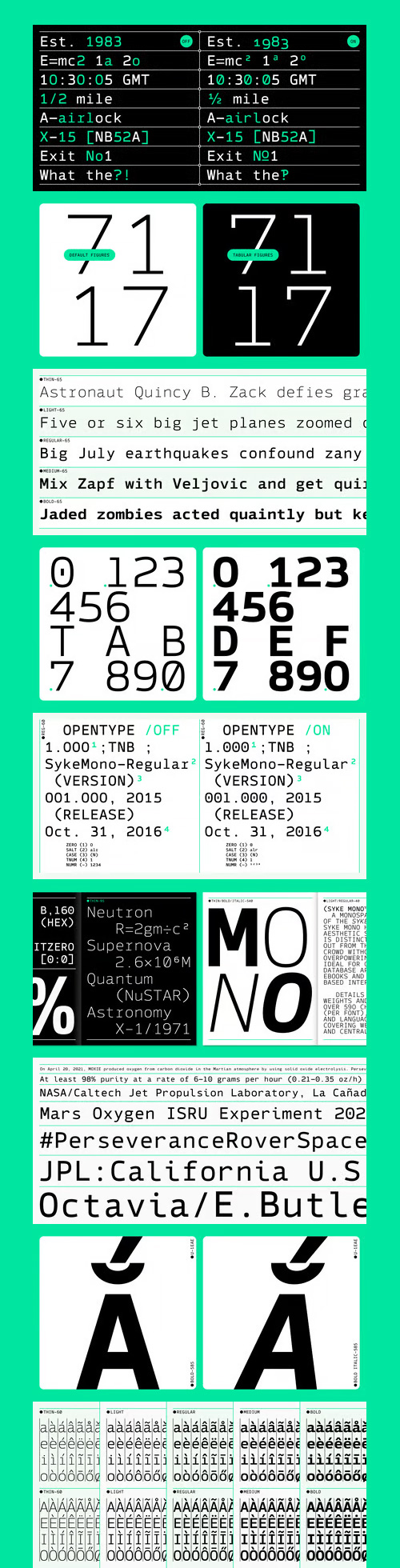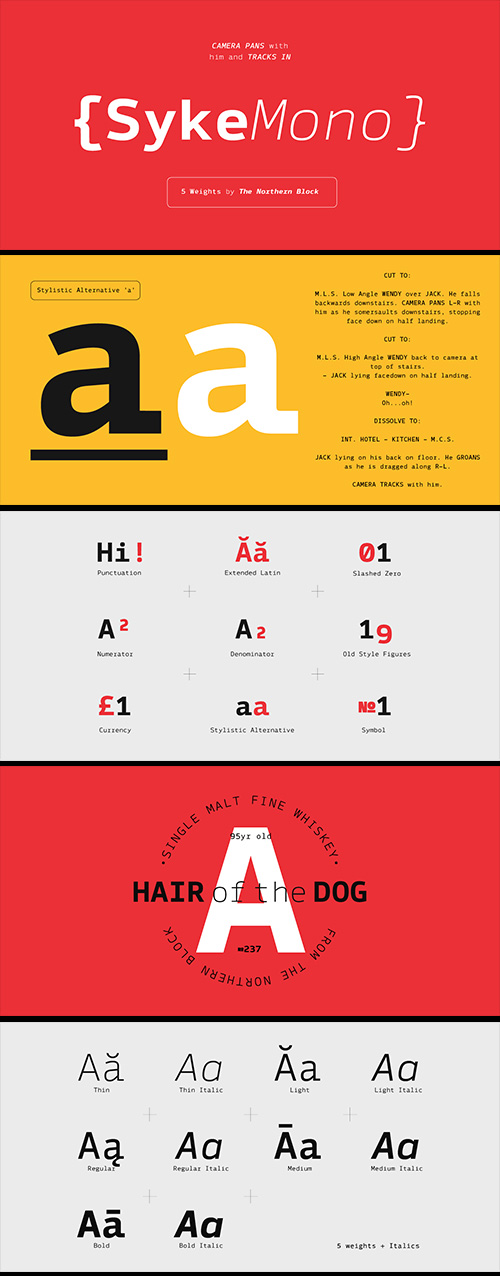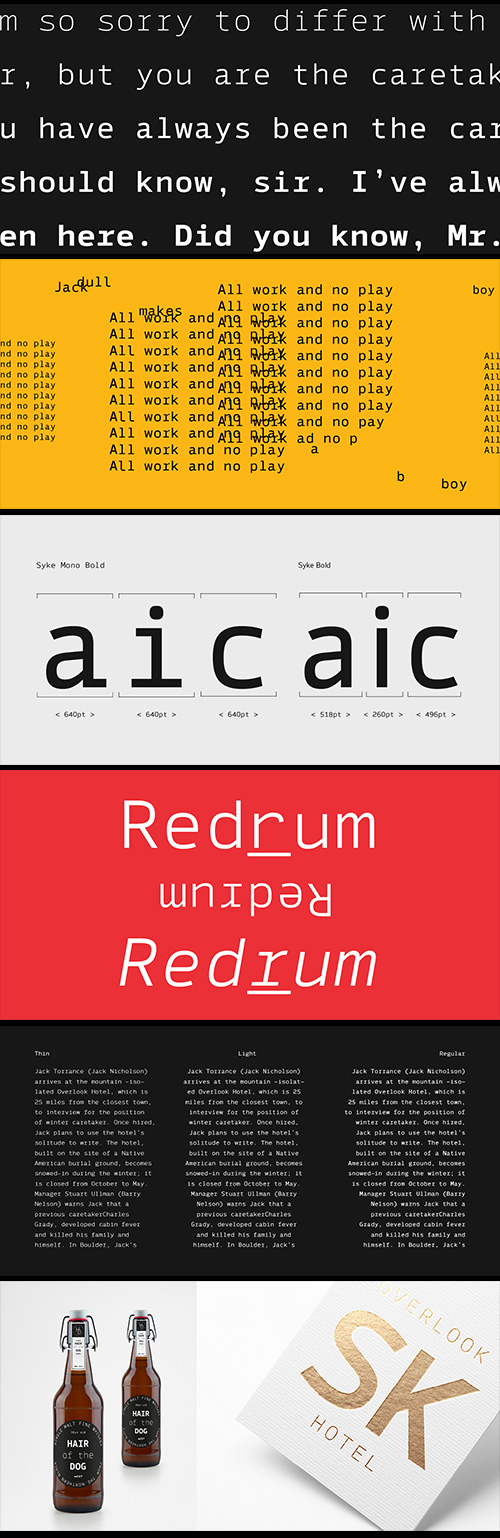
- A monospaced companion of the Syke type family. Using the proportional typeface as the reference details are carefully drawn into specially chosen characters to help improve centre alignment, function, and readability. Syke mono has a modern aesthetic style that is distinctive and stands out from the typewriter crowd without being too overpowering making it ideal for computer coding, database applications, ebooks and other screen-based interfaces. Details include five weights and true italics, over 590 characters with an alternative lowercase a, i, l and r. Five variations of numerals, manually edited kerning and Opentype features.